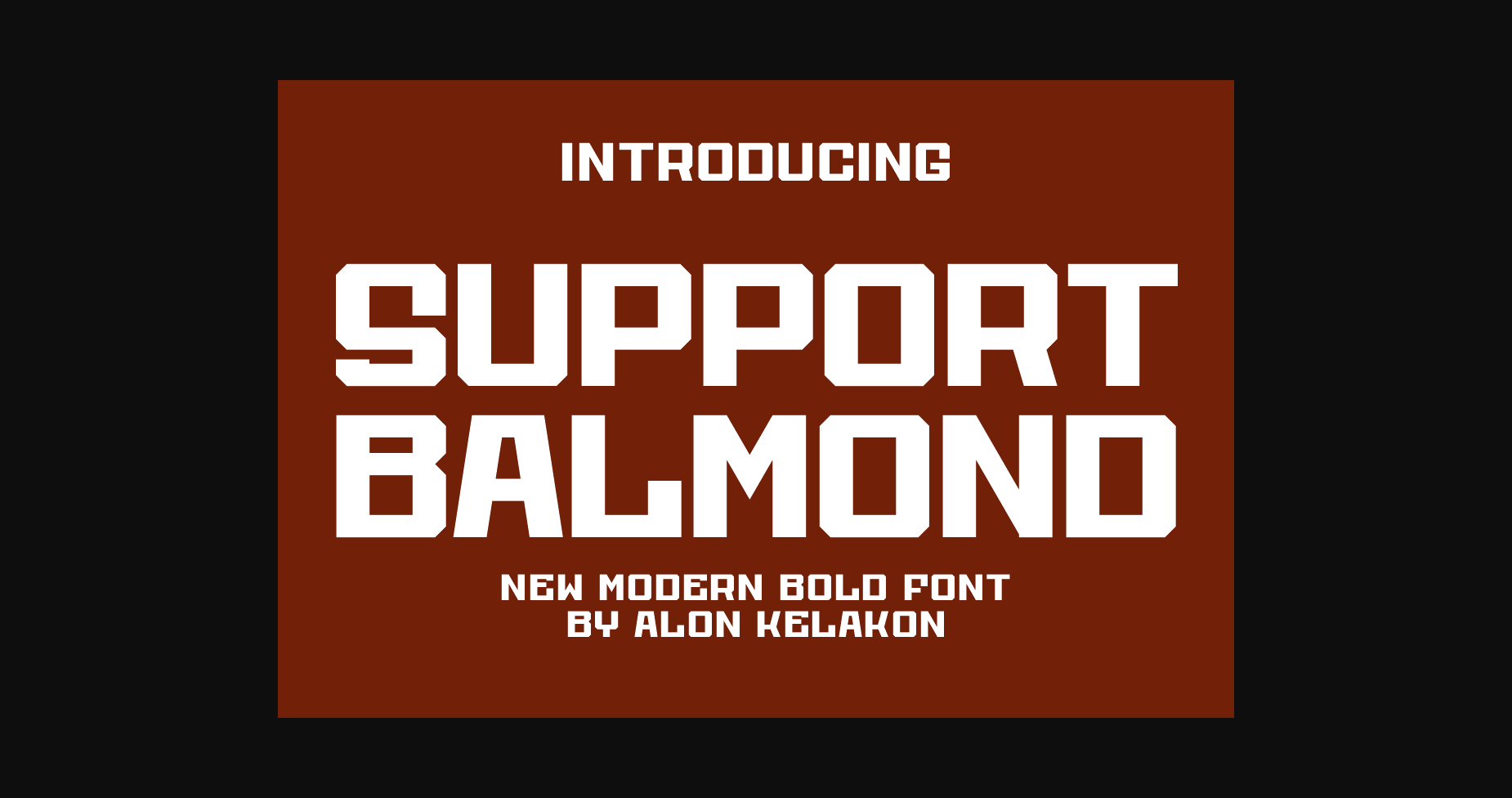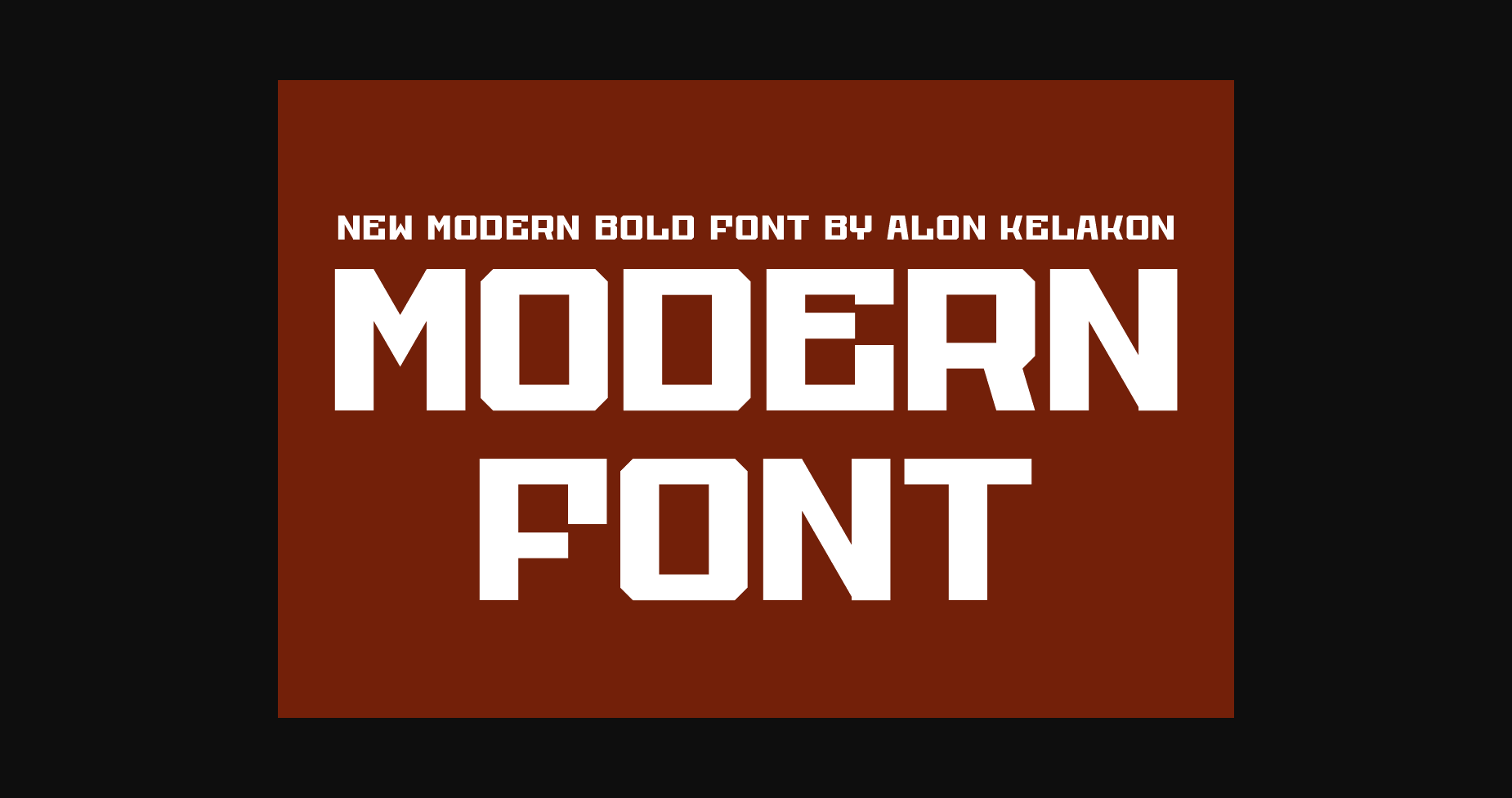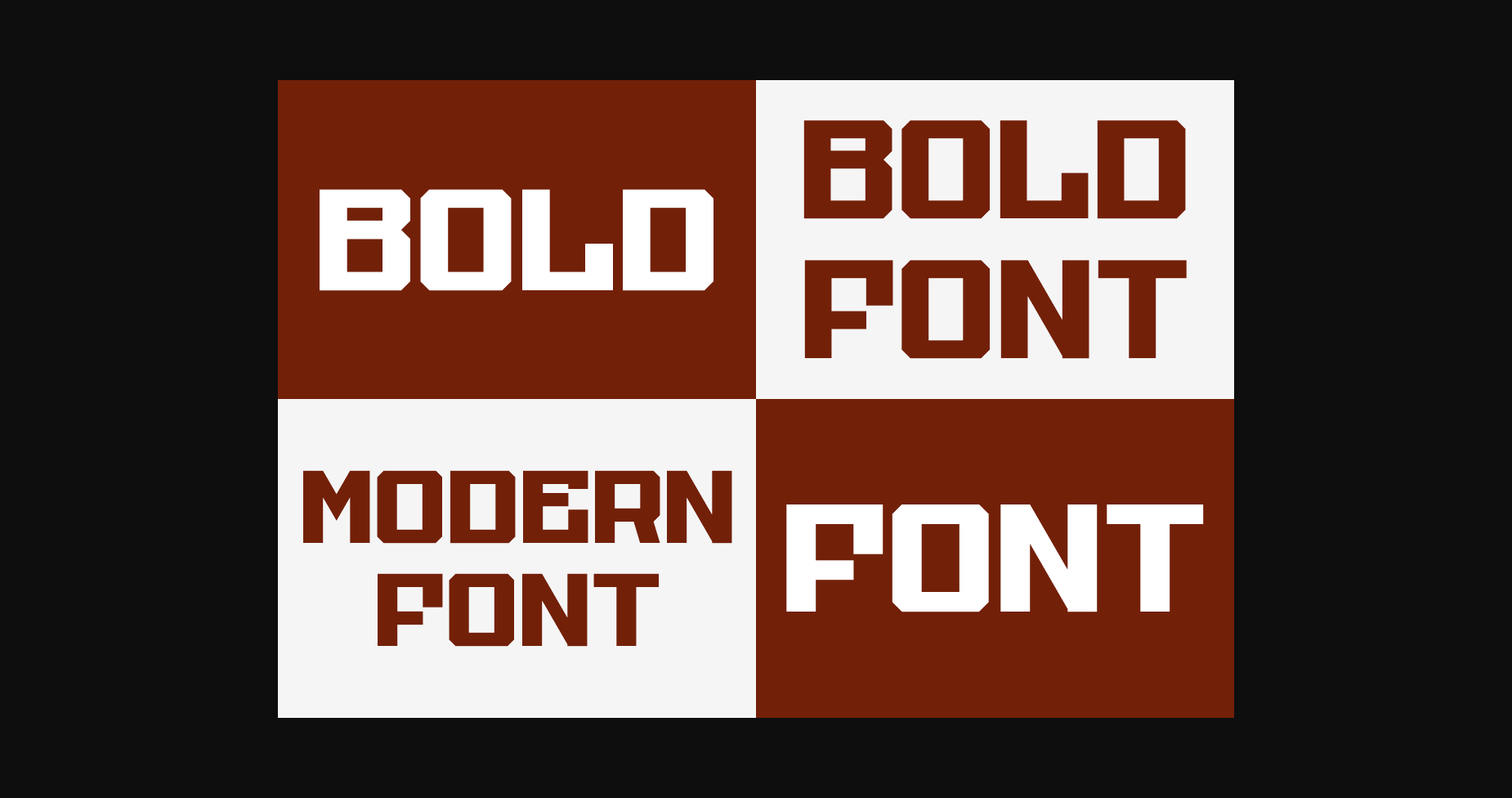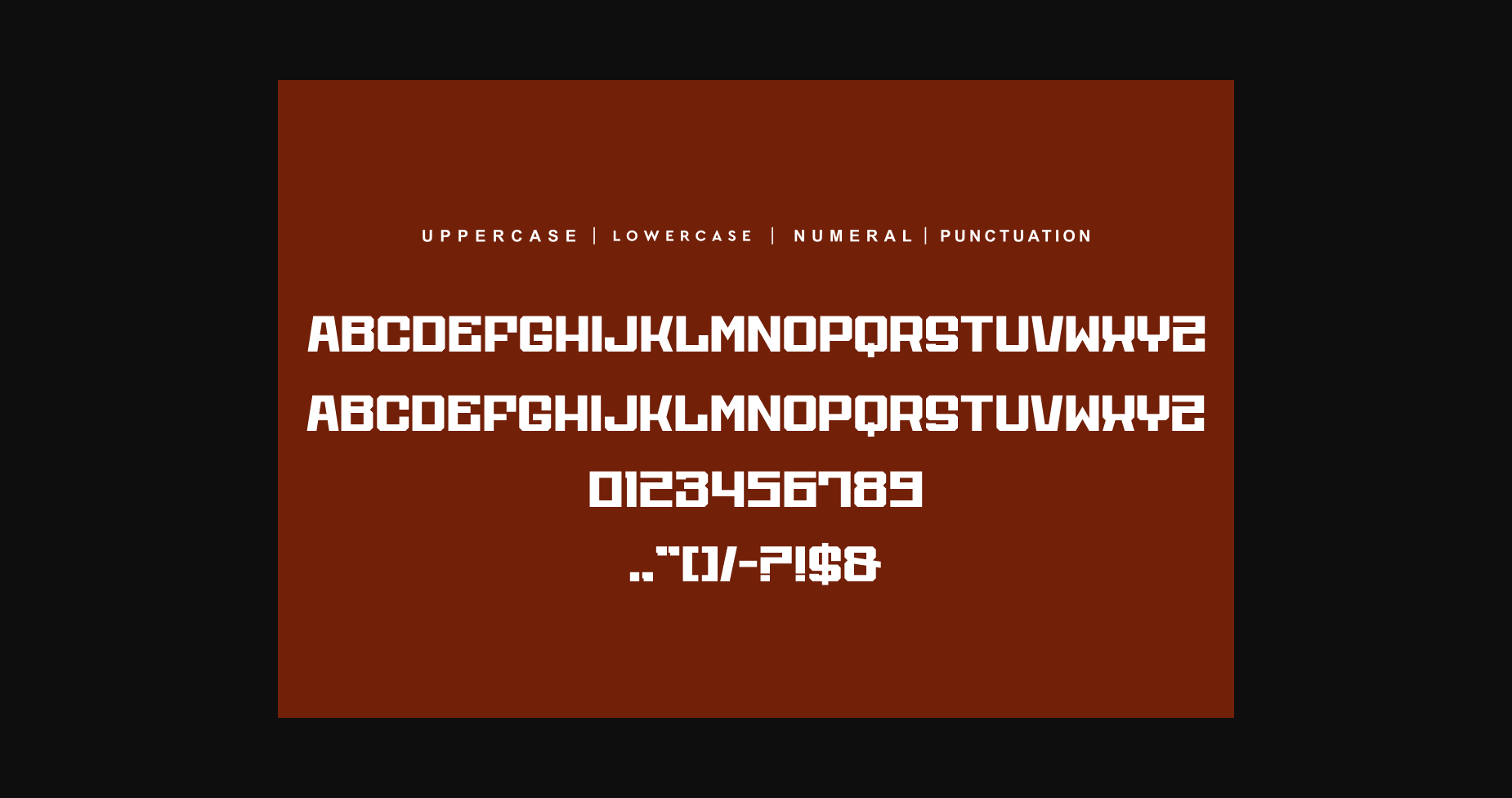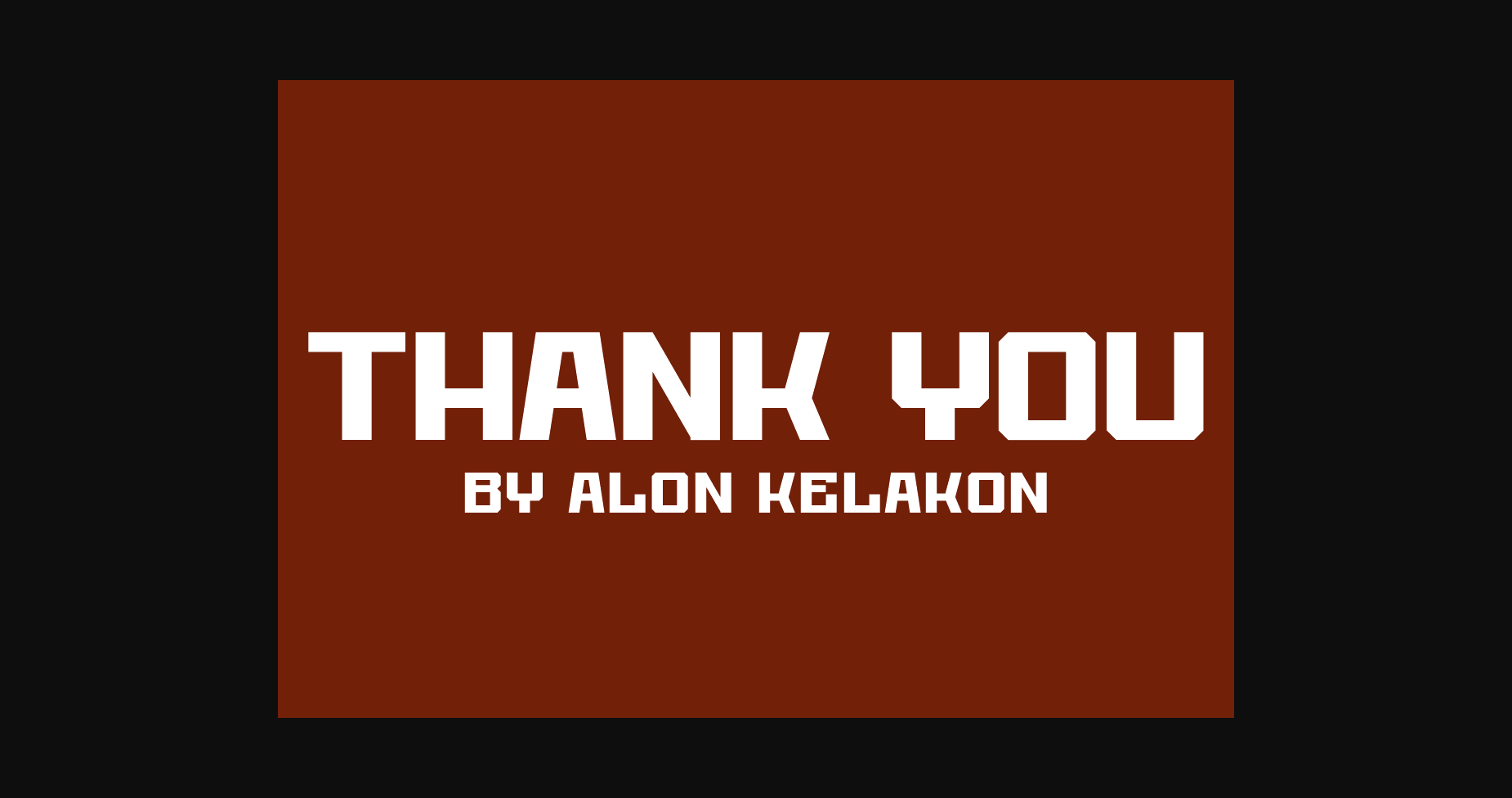
HomeSans Serif FontsSupport Balmond Font Sans Serif Fonts Support Balmond Font FacebookXPinterestWhatsApp 1 of 7 ... Support Balmond Font Poster 2... Support Balmond Font Poster 3... Support Balmond Font Poster 4... Support Balmond Font Poster 5... Support Balmond Font Poster 6... Support Balmond Font Poster 7... About Support Balmond Font Support Balmond is a cool and unique sans serif font. Add it to your creative projects and enjoy the results! DOWNLOAD NOW People also explored Matterland Font Simple Pena Font Romance Memory Font Kimberline Font Angelica Font Animal Font Sttalline Font Eagle Font Groovy Faith Hope Love Font 316 0 TagsSupport Balmond Font Previous articleBright Riesoon FontNext articleAmandez Font LEAVE A REPLY Cancel reply Comment: Please enter your comment! Name:* Please enter your name here Email:* You have entered an incorrect email address! Please enter your email address here Website: Save my name, email, and website in this browser for the next time I comment. Personal Use Free Bebas Neue Font Personal Use Free Read more about this font Beattingvile Personal Use Free Read more about this font Amellis Path Personal Use Free Read more about this font Spectrashell Personal Use Free Read more about this font BLOG Free Fonts Risk: Why Free Fonts Can Be Dangerous for Designers Free Fonts Risk: Why Free Fonts Can Be Dangerous for Designers Using free fonts is a common practice in web and graphic design. However, the... Transform Your Website: Elevate Your Typography with 7 Best Web Font Generators Elegant Wedding Invitation Fonts – Handwritten & Script Fonts 5 Fonts That Will Dominate Design Trends in 2026